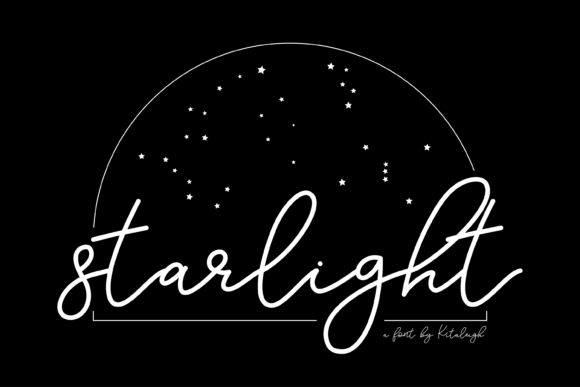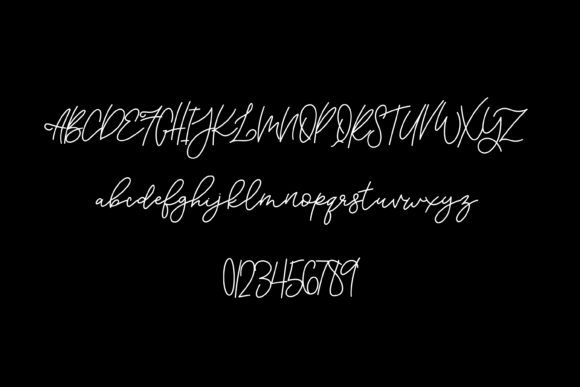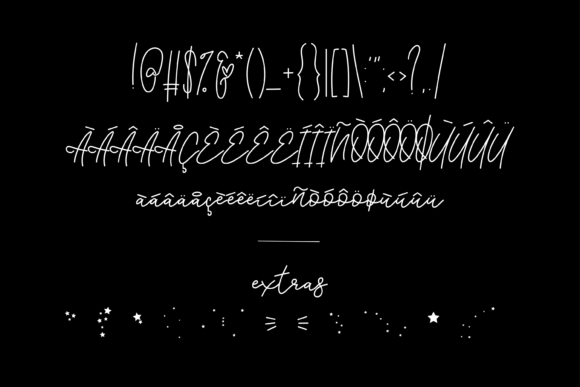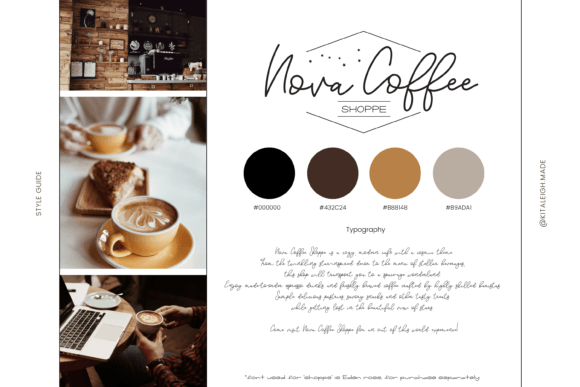
Starlight Font: A Delicate Script for Wedding Invitations & Logo Design
About the Starlight Font
The Starlight Font is here to transform your projects with its distinctive character and style. Starlight is a beautifully delicate script font that captures the serene and whimsical essence of the night sky. With its fluid strokes and elegant curves, Starlight adds a dreamy, graceful touch to any project. This font is perfect for wedding invitations, branding, social media posts, and logos, where a touch of elegance and wonder is needed. It also includes lovely star extras, adding a magical celestial element to your designs. Let Starlight illuminate your creative work with its subtle sophistication and charm.
Starlight Font Usage Examples
Starlight Font Example